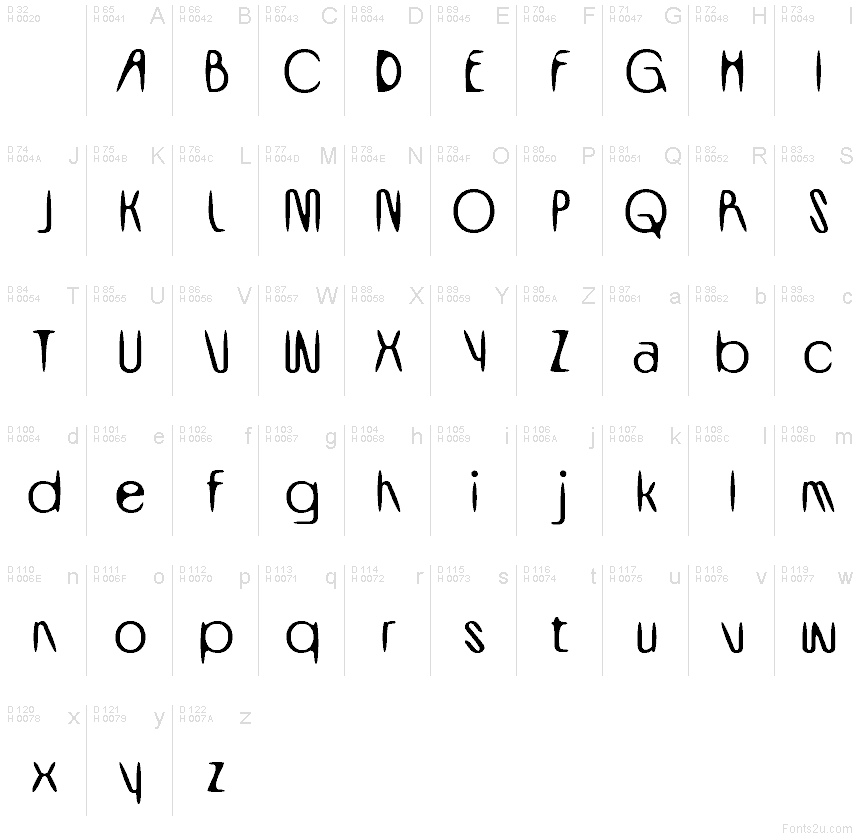
CSCarsonDrawn-Regular Demo
CS Carson Drawn font by Craft Supply Co. is an ornamental display font with a light condensed structure and inventive shaping of its characters. The font has a contemporary flair thanks to the subtle sophistication of the artists who worked on it, while its unique look and artistic flair arises from its beautiful contours.
Use this free display typeface in wall art design, greeting cards, typography quotes, album covers, website headers, social media ads or posts, magazine covers or spreads. The author states that CS Carson Drawn was created in attempt to pay respect to the great designer David Carson.